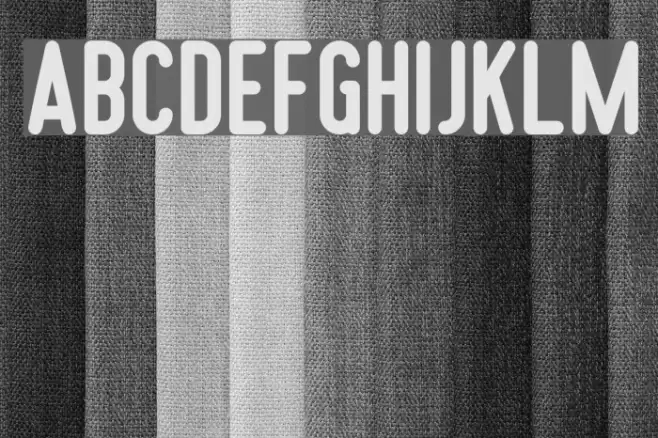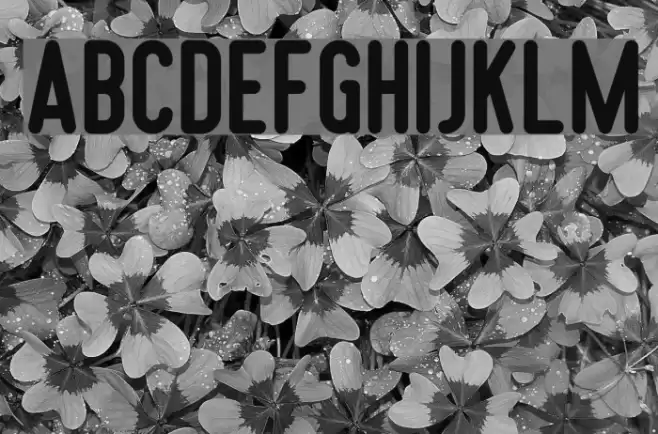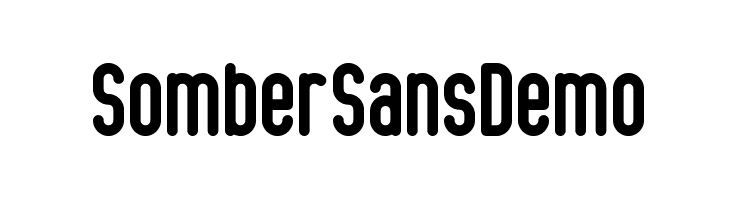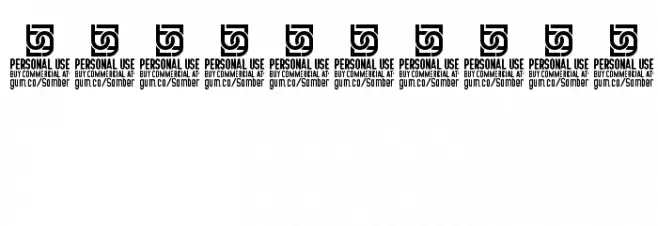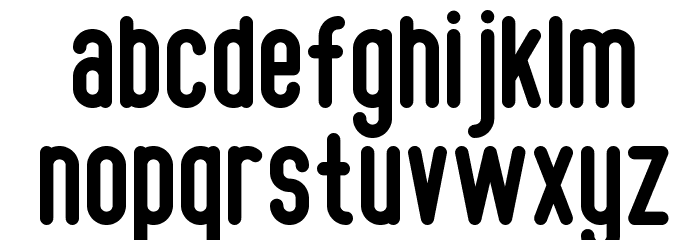
SomberSansDemo Font
SomberSansDemo Description
This font features a bold and rounded sans-serif style, characterized by its thick strokes and smooth curves. The uppercase letters are uniform in height, providing a strong and cohesive appearance. The lowercase letters maintain a similar thickness, ensuring readability and consistency. The numbers are clear and distinct, matching the overall boldness of the alphabet. Special characters are designed with the same rounded edges, integrating seamlessly with the rest of the font. This font's modern and approachable aesthetic makes it suitable for a variety of design applications.
A bold, rounded sans-serif font with smooth curves and thick strokes from Uncategorized fonts.
- Proposed Projects: Ideal for branding, headlines, posters, and digital media where a modern and friendly look is desired.